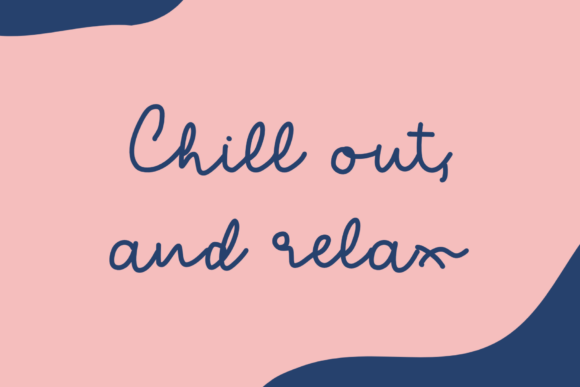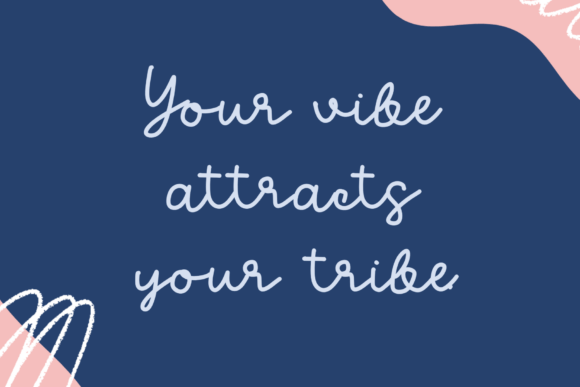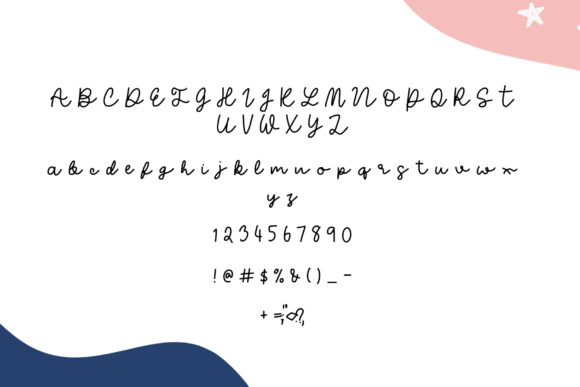
Bringing Relaxation to Your Designs with Chill Vibe Font
I’ll never forget the time I was working on a design project for a cozy boutique cafe, and I was struggling to find the perfect font to capture their laid-back vibe. The client wanted something that felt friendly, approachable, and effortlessly relaxed. I scoured the internet, tried out countless fonts, but nothing seemed quite right. That was until I stumbled upon Chill Vibe, a charming handwritten cursive font that instantly resonated with the cafe’s brand personality.
What Makes Chill Vibe Special?
Chill Vibe is more than just a font – it’s a design solution that brings a sense of calm and serenity to your layouts. With its monoline, organic strokes, gentle baseline bounce, wide friendly loops, and soft rounded terminals, this typeface perfectly bridges the gap between cozy personal journaling and modern lifestyle branding.
- ✨ Effortlessly relaxed and friendly vibe
- ✅ Medium structural weight for perfect balance
- ✅ Wide friendly loops and soft rounded terminals for added elegance
- ✅ OpenType features for advanced typography
- ⚠️ Some users may find the font too casual for formal projects
- 🤔 Limited use of uppercase letters, which can be a drawback for certain designs
The Story Behind Chill Vibe
Chill Vibe was designed with the intention of creating a font that captures the essence of a laid-back, friendly vibe. The designer aimed to create a typeface that would bridge the gap between cozy personal journaling and modern lifestyle branding. With its unique blend of monoline, organic strokes, and gentle baseline bounce, Chill Vibe has become a go-to font for designers seeking to add a touch of relaxation to their designs.
| What is the best use for Chill Vibe font? | Chill Vibe is perfect for independent lifestyle planner designs, boutique cafe menus, casual product packaging, and high-impact social media quotes. |
| Is Chill Vibe suitable for formal projects? | While Chill Vibe has a relaxed vibe, it can still be used for formal projects that require a touch of elegance. However, it may not be the best choice for very formal or traditional designs. |
| Does Chill Vibe support OpenType features? | Yes, Chill Vibe supports OpenType features, including ligatures, stylistic alternates, and glyphs. |